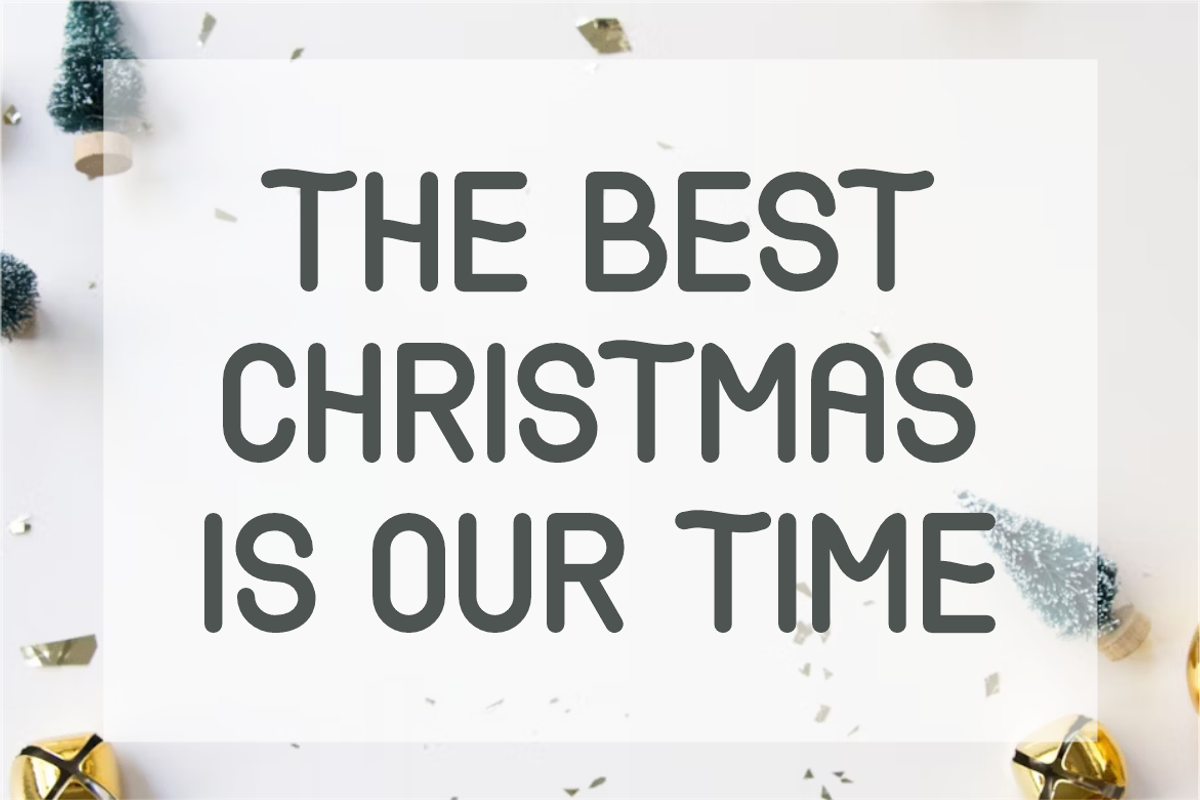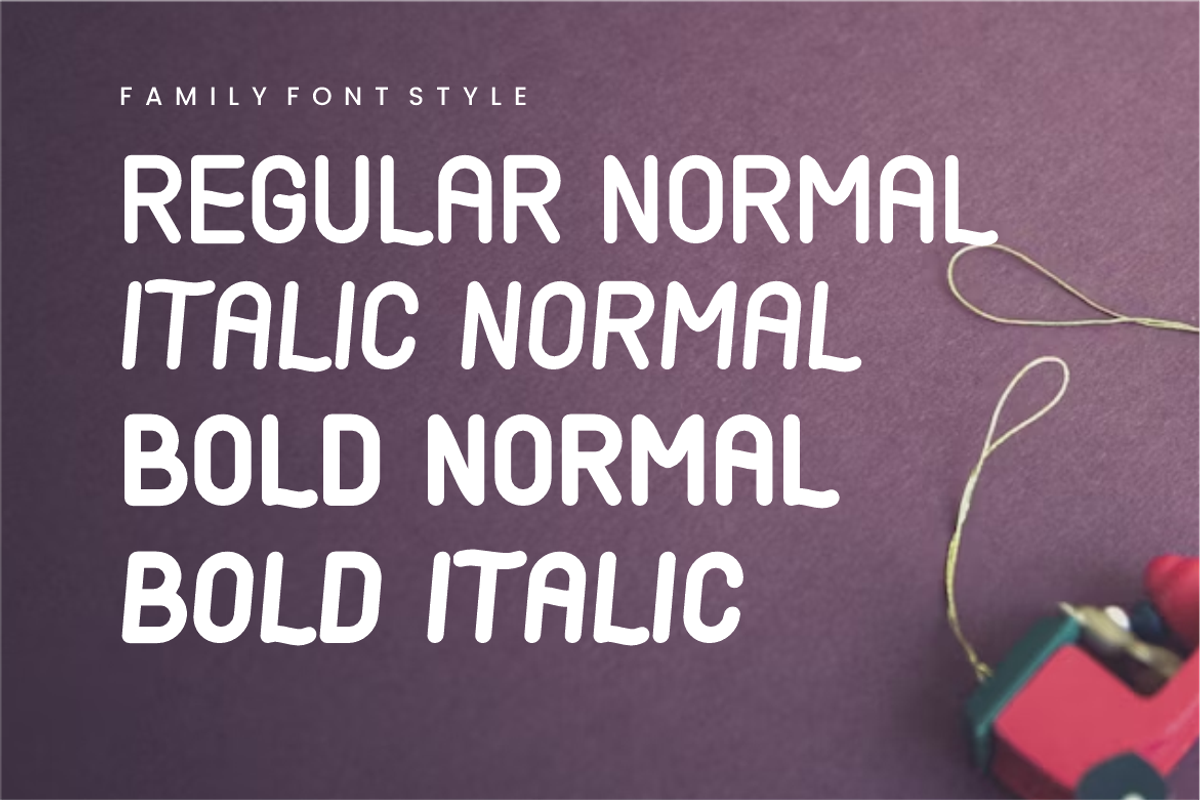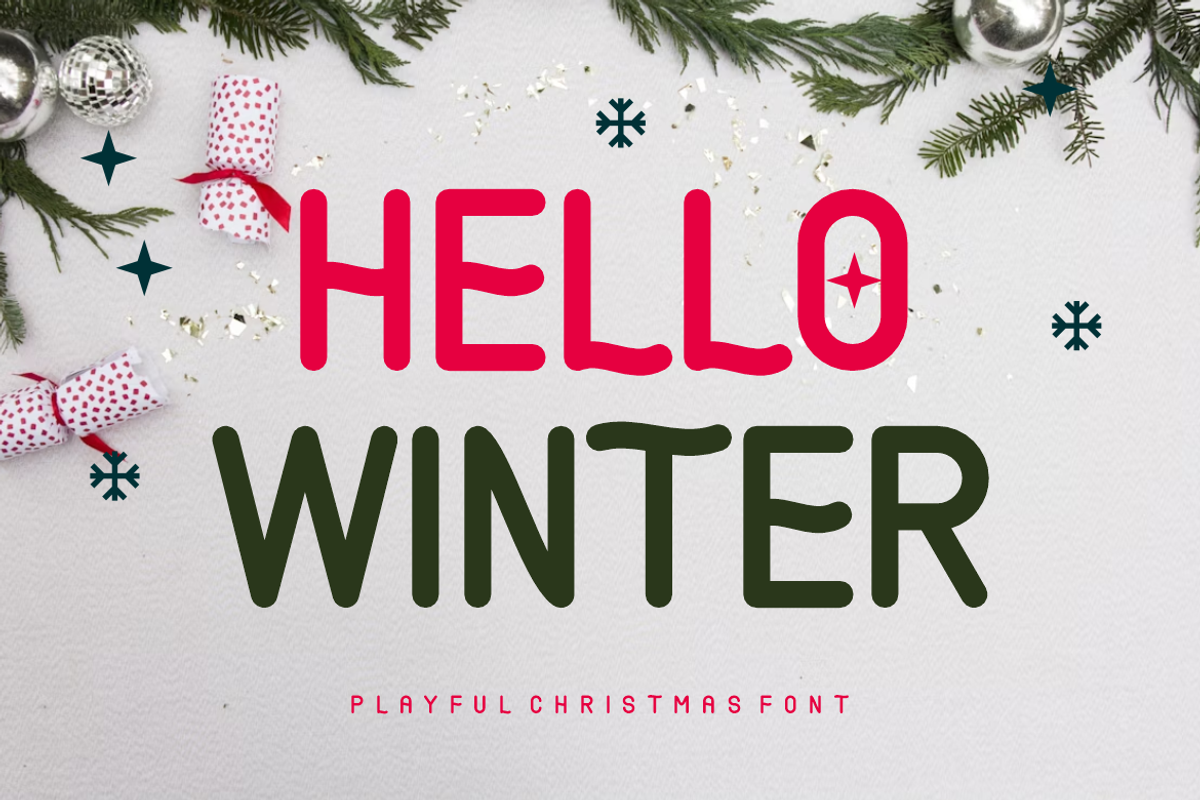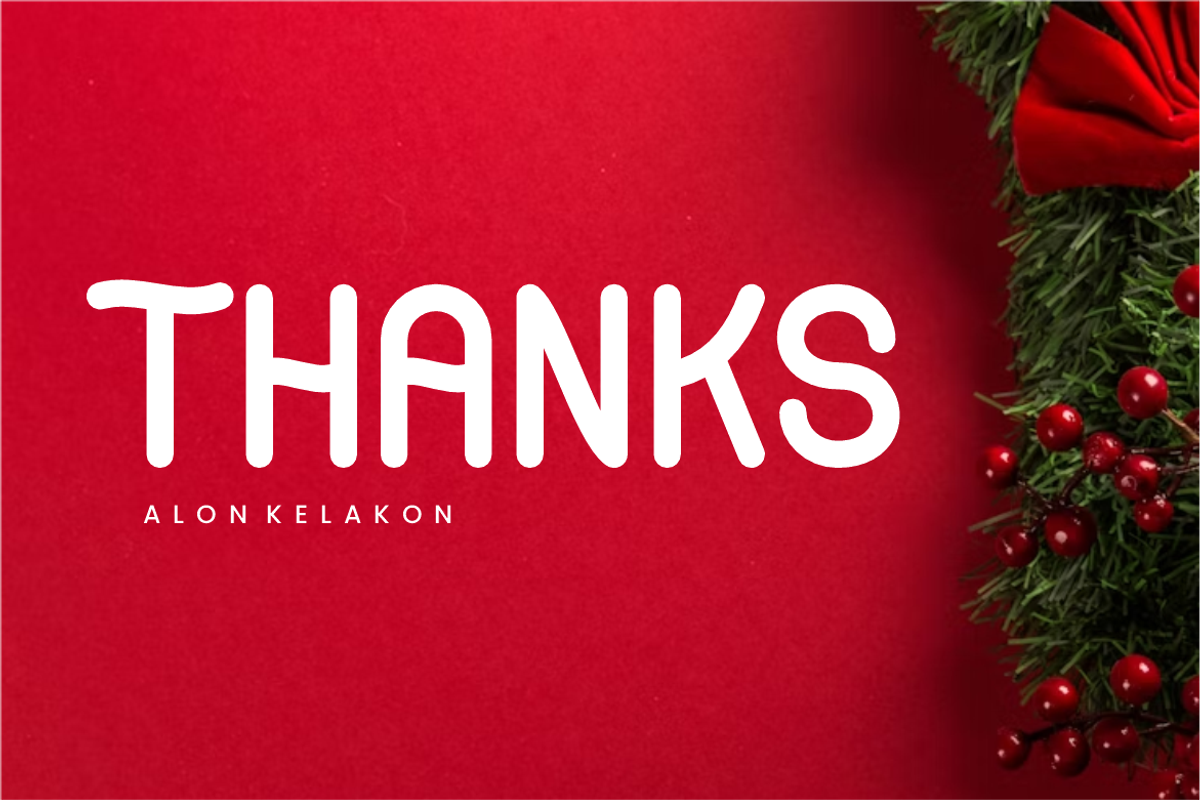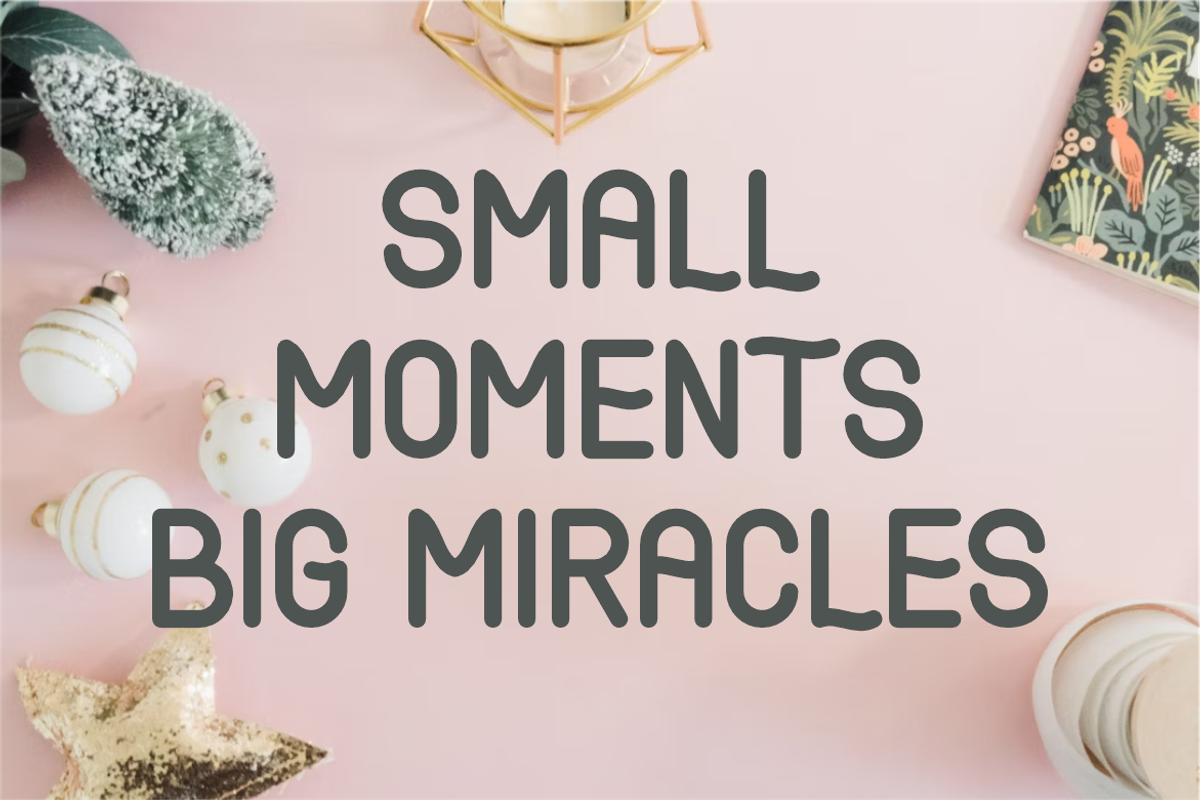
Hello Winter
❄️ Font Description: "Playful Christmas Font" This typeface is explicitly labeled as a "Playful Christmas Font." It belongs to the rounded sans-serif category and is designed to convey warmth, friendliness, and a whimsical holiday spirit. It is highly legible and accessible due to its lack of sharp edges.